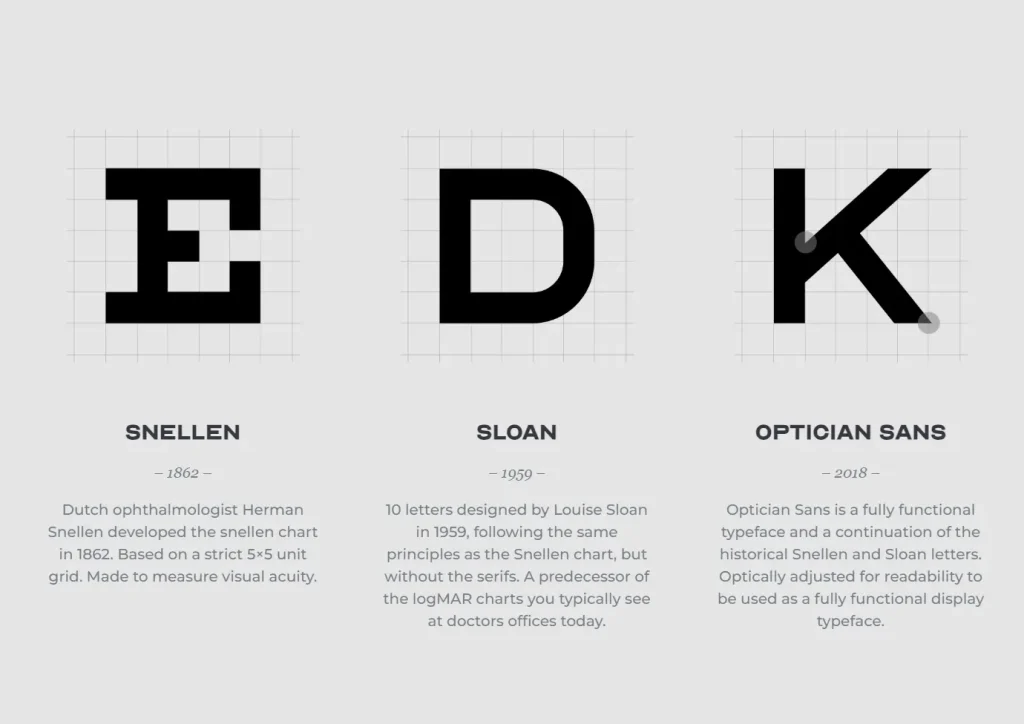
Optician Sans is a free typeface built from the 10 historical optotype letters found on eye charts worldwide. It completes a project that started decades ago.
The typeface includes the original skeleton letters from charts designed by Hermann Snellen in 1862 and Louise Sloan in 1959, plus a full set of numbers, punctuation, and special characters.
Key Features
- Based directly on the 10 historical optotype letters from standard LogMAR eye charts.
- Includes a full set of numbers and special characters for practical use.
- Draws from a recognized design with a history dating back to 1862.
- Offers a distinct, authoritative tone perfect for headlines and branding.
Use Cases
- Creating branding and posters for optometrists, medical clinics, or health apps.
- Designing impactful headlines and title cards for presentations or publications.
- Adding a layer of authenticity to editorial designs about vision or health.
- Developing packaging or labels for medical or science-related products.